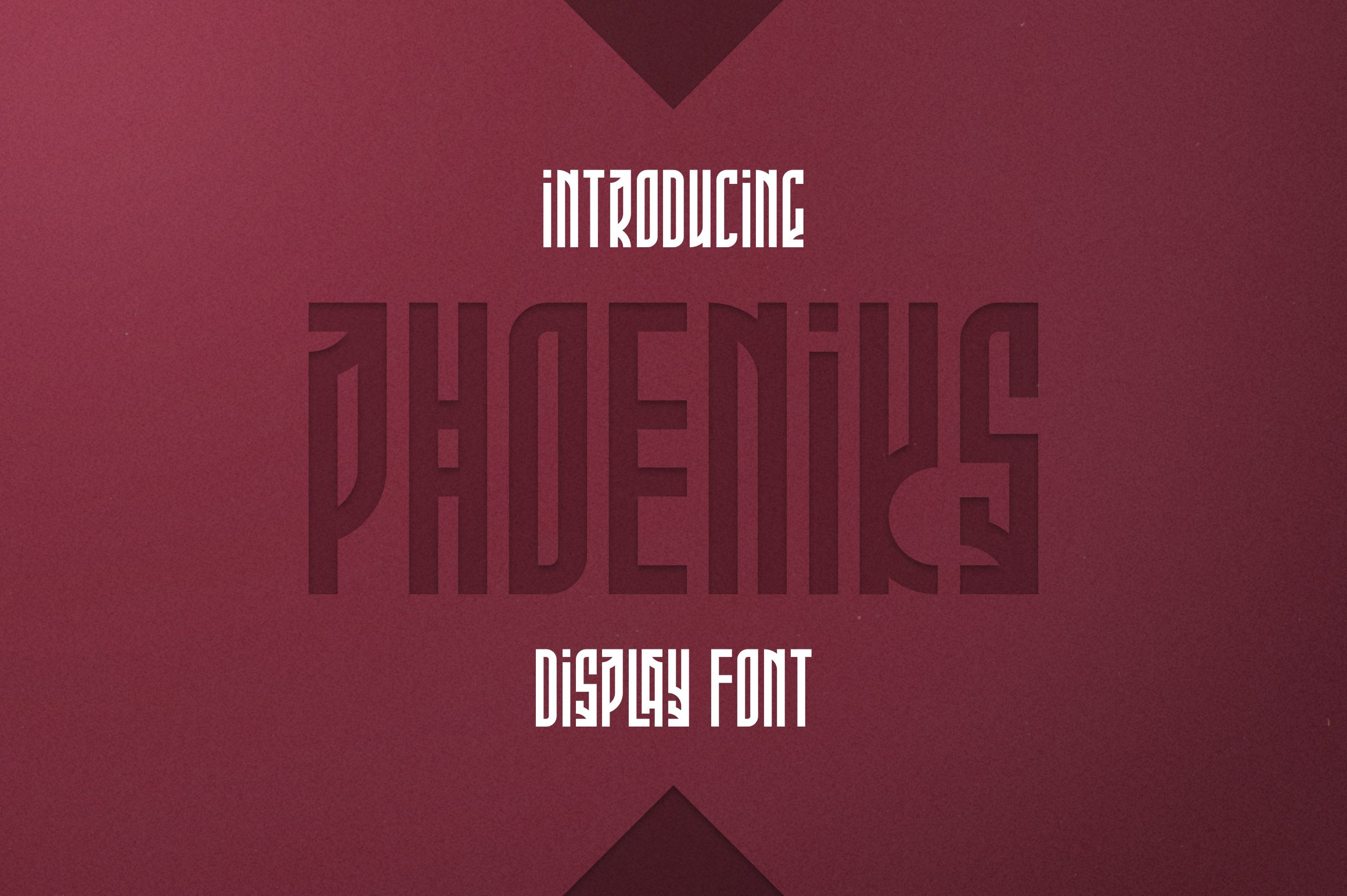
Phoeniks - Display Font
Phoeniks Display Font is perfect for transformation business branding, phoenix-themed event promotions, rebirth marketing campaigns, resilience training materials, comeback story publications, renewal service communications, mythical creature entertainment, and inspirational motivational content where rising from challenges and powerful transformation are emphasized.
What makes Phoeniks Display Font so exciting is its triumphant ability to embody the legendary power of resurrection and renewal through bold, rising letterforms that capture the majestic strength and transformative energy of the phoenix while maintaining exceptional impact for display applications. The soaring character design reflects the indomitable spirit and regenerative power that defines authentic personal transformation and organizational renewal.
The Phoeniks Display Font family includes light, regular, bold, black, and flame variants, with phoenix-inspired decorative elements and mythical ornaments that provide comprehensive tools for creating powerful transformation branding and inspirational design systems.
This magnificent typeface represents the essence of triumphant renewal, combining mythological symbolism with contemporary motivation industry requirements. The Phoeniks Display Font Free Download gives inspirational organizations access to typography that communicates transformative power and resilient strength.
The font's ascending character architecture and flame-like proportions create immediate associations with phoenix mythology and transformational experiences. Each letterform has been designed to evoke the courage and renewal energy that defines successful comebacks and powerful personal transformation journeys.
Phoeniks Display Font excels in creating inspiring communications that motivate transformation and celebrate resilient strength. The typeface's mythical character makes it ideal for life coaches, transformation consultants, and motivational speakers targeting audiences seeking powerful personal renewal and comeback inspiration.
From recovery programs to business turnaround consultancies, this font brings mythological credibility that appeals to individuals and organizations committed to rising from challenges and achieving transformational success. The versatile design maintains its phoenix character across both traditional motivational materials and modern digital transformation platforms.